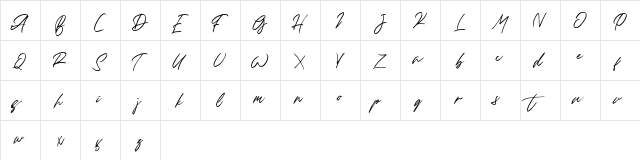
Halcyon FREE Regular
Design Context for Halcyon FREE Typeface
Halcyon FREE is a composed and adaptable typeface that performs quietly and consistently across a wide range of design contexts.